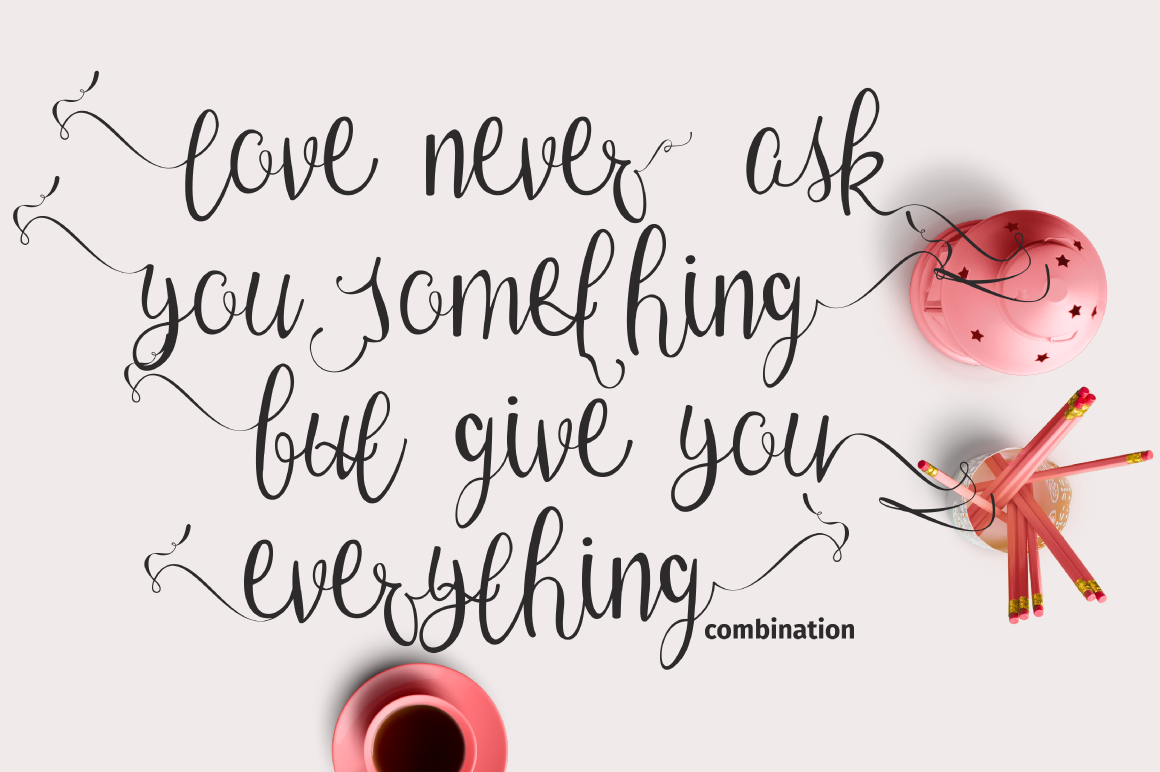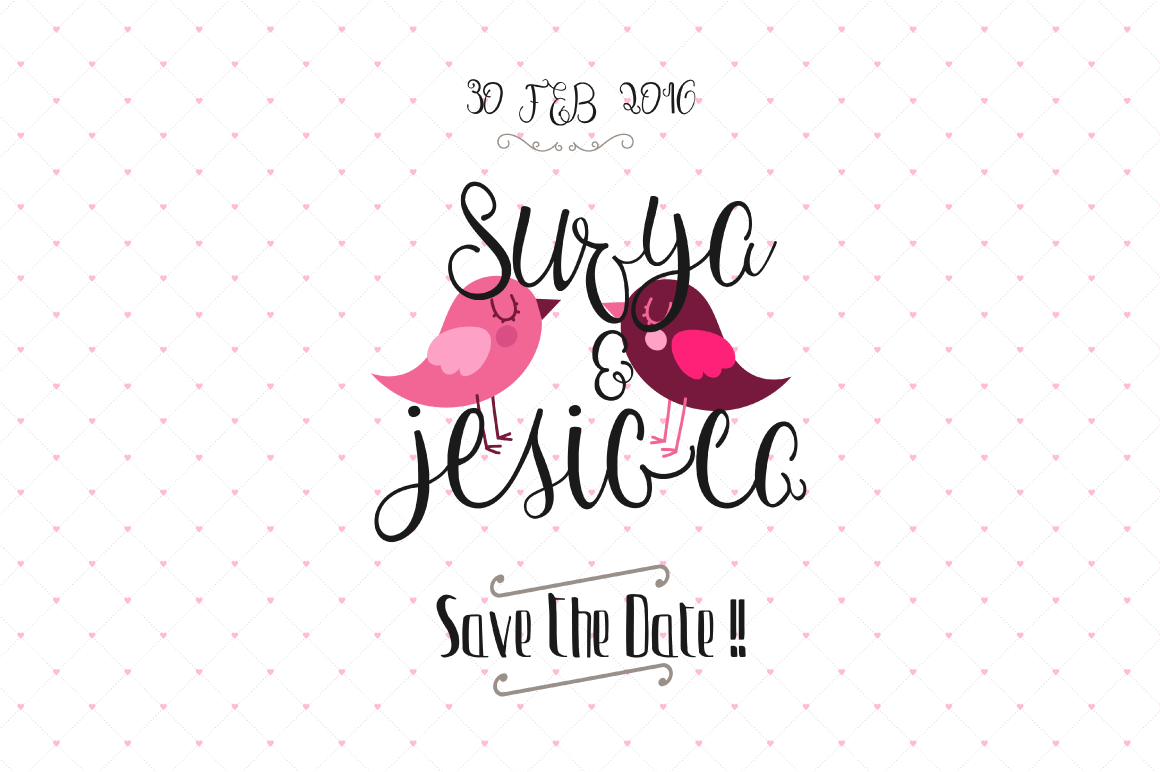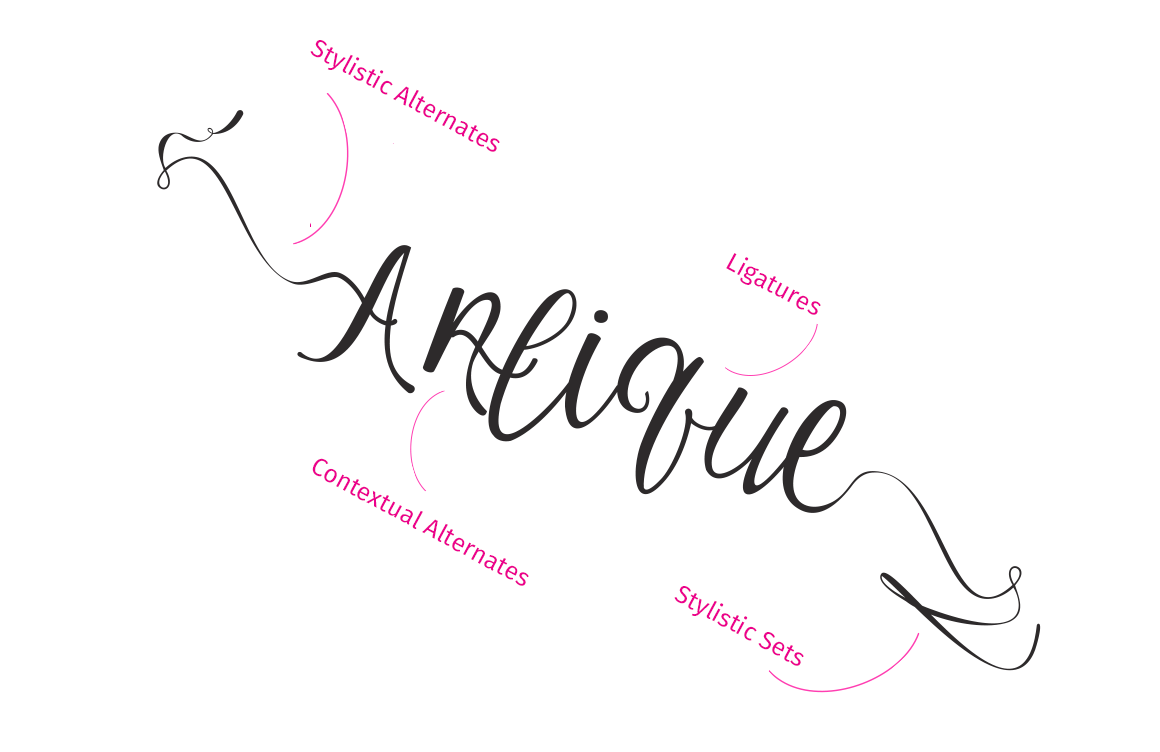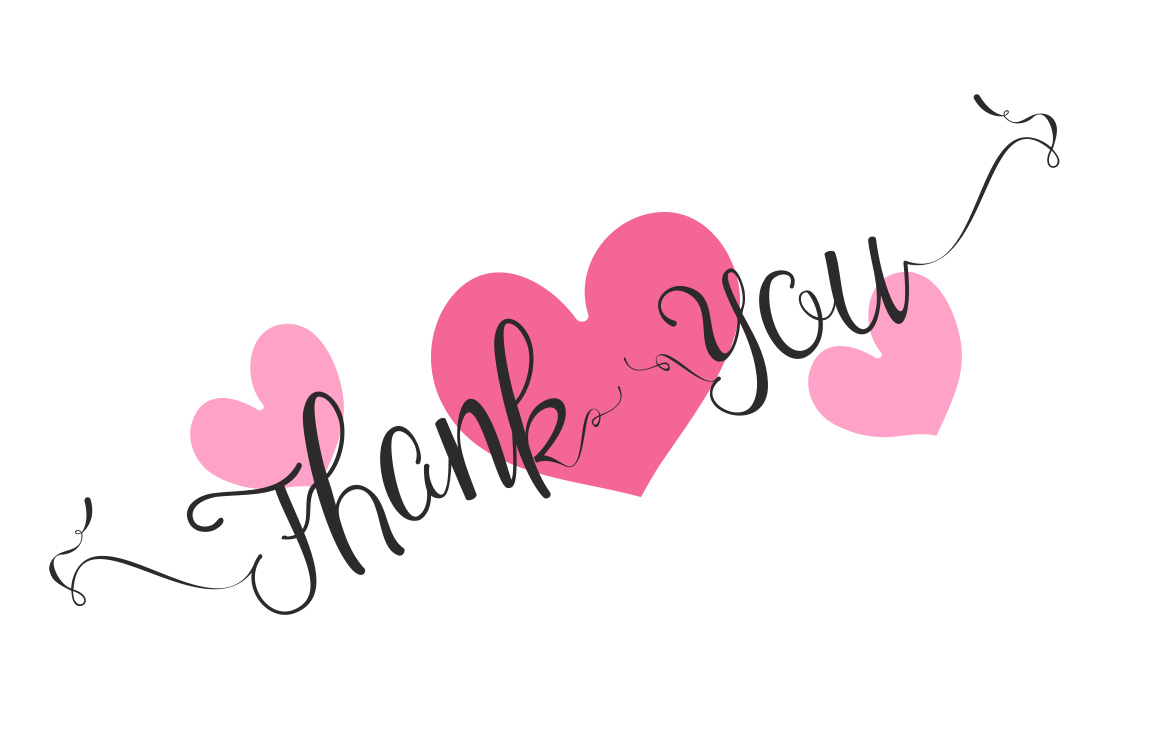
HomeScript FontsZerica Script Font Script Fonts Zerica Script Font FacebookXPinterestWhatsApp Zerica Script Font Poster 2 Zerica Script Font Poster 3 Zerica Script Font Poster 4 Zerica Script Font Poster 5 About Zerica Script Font Zerica Script, a bold calligraphy font featuring many opentype features. DOWNLOAD NOW People also explored Herland Font Maphylla Font Juragan Font Baleish Font Watermelon Shortcake Font Tribista Font Backbone Font Roselina Font Deviato Font 337 0 TagsZerica Script Font Previous articleLet That Be Enough FontNext articleHollidays Font LEAVE A REPLY Cancel reply Comment: Please enter your comment! Name:* Please enter your name here Email:* You have entered an incorrect email address! Please enter your email address here Website: Save my name, email, and website in this browser for the next time I comment. Personal Use Free Glosery Personal Use Free Read more about this font Ginóra Personal Use Free Read more about this font Rollayka Personal Use Free Read more about this font Austin Personal Use Free Read more about this font BLOG Best Fonts for YouTube Videos: Make Your Thumbnails Stand Out Best Fonts for YouTube Videos: Make Your Thumbnails Stand Out Choosing the right font can make a massive difference in how your YouTube videos perform.... To increase your work productivity, choose the most readable fonts. Transform Your Website: Elevate Your Typography with 7 Best Web Font Generators Where to Buy American Fonts Online in 2024